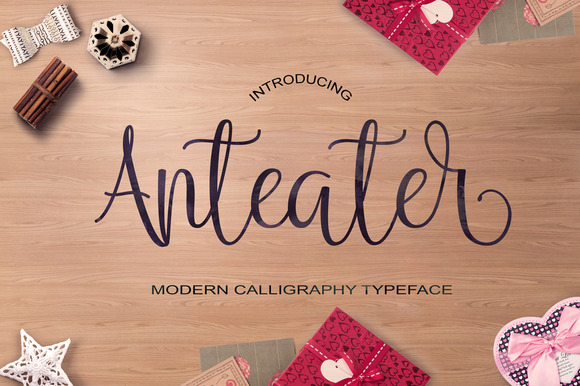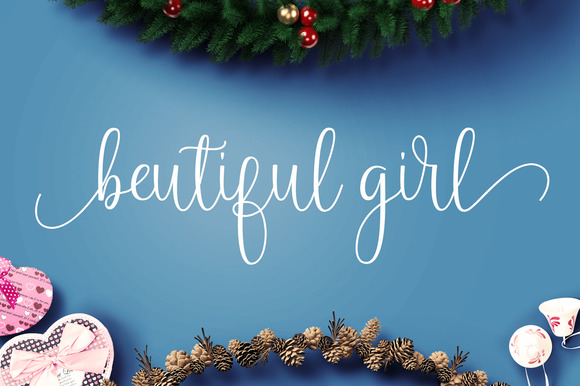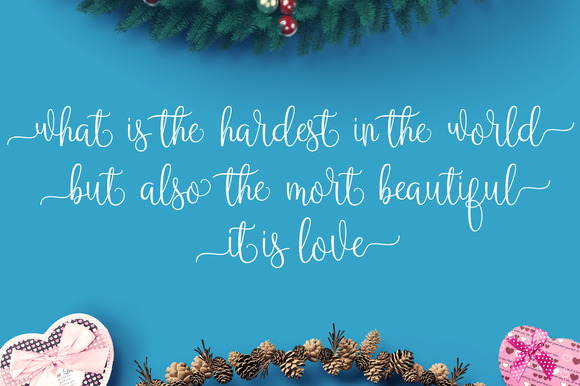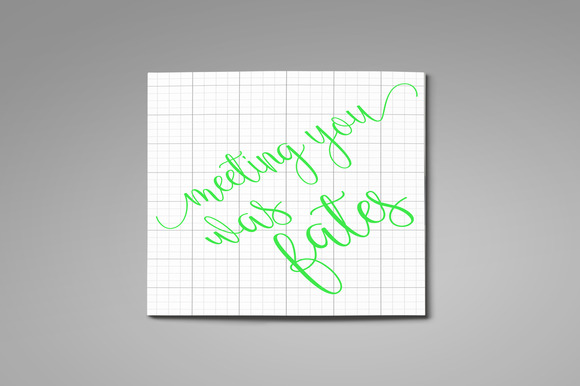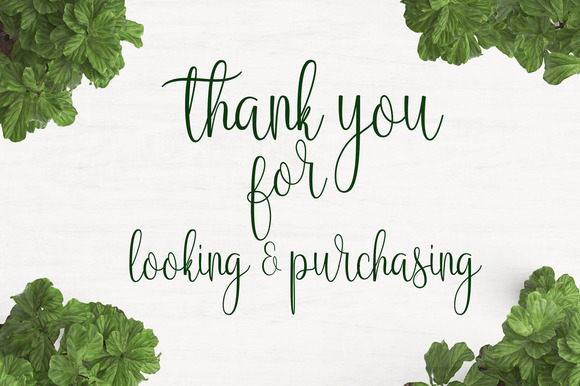
HomeScript FontsAnteater Font Script Fonts Anteater Font FacebookXPinterestWhatsApp Anteater Font Poster 2 Anteater Font Poster 3 Anteater Font Poster 4 Anteater Font Poster 5 About Anteater Font Anteater is a moderm handwritten calligraphy font created by JoeeCreative. DOWNLOAD ON CREATIVE FABRICAThis font is sold and delivered by Creative Fabrica. Font Canyon may earn a commission if you buy through this link. People also explored Hey Lovely Font Angellida Font Brithney Font Tropical Cacao Font Craft String Font Wild Zova Font Agretha Font Mounlee Font Love Story Font 321 0 TagsAnteater Font Previous articleChinchilla FontNext articleThe Eye Catcher Font LEAVE A REPLY Cancel reply Comment: Please enter your comment! Name:* Please enter your name here Email:* You have entered an incorrect email address! Please enter your email address here Website: Save my name, email, and website in this browser for the next time I comment. Personal Use Free Quick Count Personal Use Free Read more about this font The 10 Best Handwriting Fonts to Add Personality to Your Designs Blog Read more about this font Krait Personal Use Free Read more about this font Browie Personal Use Free Read more about this font BLOG To increase your work productivity, choose the most readable fonts. In today's fast-paced work environment, where digital communication and information consumption are integral to our daily routines, the choice of fonts can significantly impact... Elegant Wedding Invitation Fonts – Handwritten & Script Fonts Top 7 Google Fonts Alternatives for Faster and Privacy-Friendly Web Design (2025) How to Cut Any Font on Cricut: Convert a Font to SVG (Free)